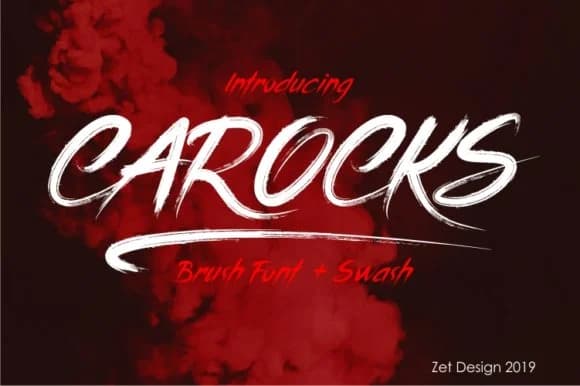
Carocks, created by ZetDesign, is a bold brush script featuring thick, expressive strokes and a distinctly gruff character that feels raw and completely intentional. The letterforms embrace a grunge-metal aesthetic without pretense, delivering genuine personality with playful energy that naturally resonates with younger audiences and anyone working in music or subculture-driven creative projects.
This typeface thrives in loud, direct applications where attitude matters as much as legibility itself. Band posters, music festival flyers, youth-oriented merchandise graphics, and skate or streetwear brand signage all benefit from Carocks' authentic, unrefined edge. Concert promotion materials come alive with its energy, while album cover layouts and DIY music event graphics gain immediate visual confidence. The bold weight carries across all applications, whether printed large on posters or used in digital promotional content, maintaining its grunge-forward personality without fading into the background noise.
Musicians, young designers, and brands built on rebellion or counterculture messaging will find Carocks invaluable for any project that rejects polish in favor of genuine punch and attitude. It's the typeface for work that needs to grab attention through raw character rather than refinement or subtlety. Available on Creative Fabrica, Carocks is ready to inject that edge into your next high-impact design project.
Carocks Font is a script font that shines as a display or heading face. Pair it with a clean sans-serif or serif font for body text β the contrast creates a clear hierarchy while the two styles stay balanced and easy to read.